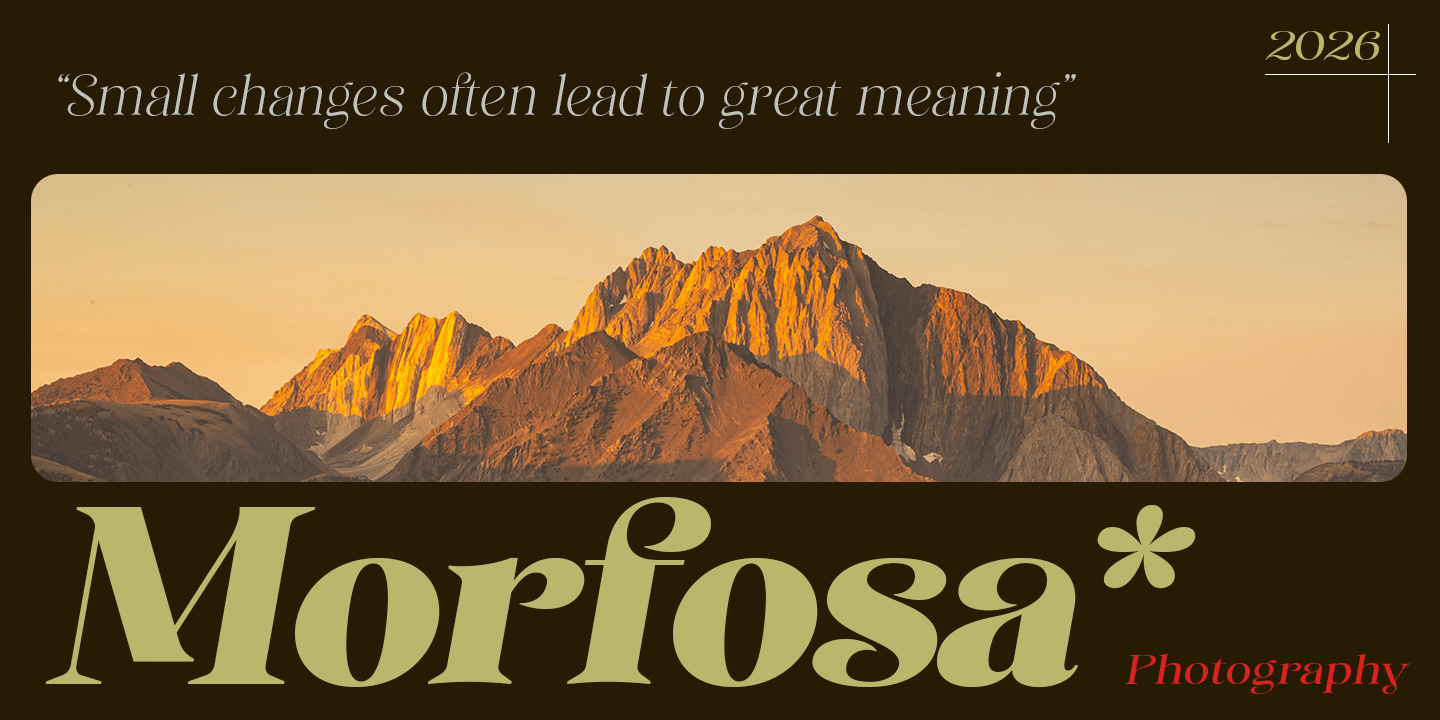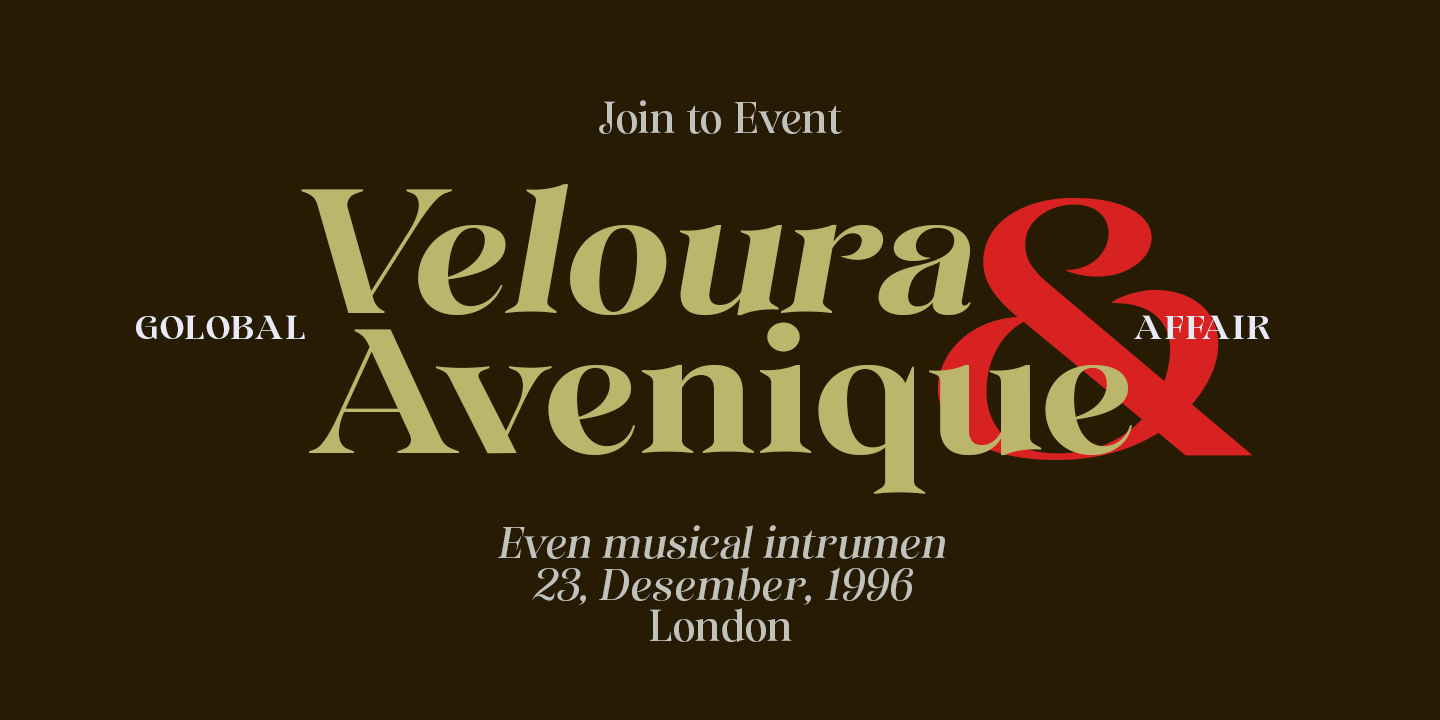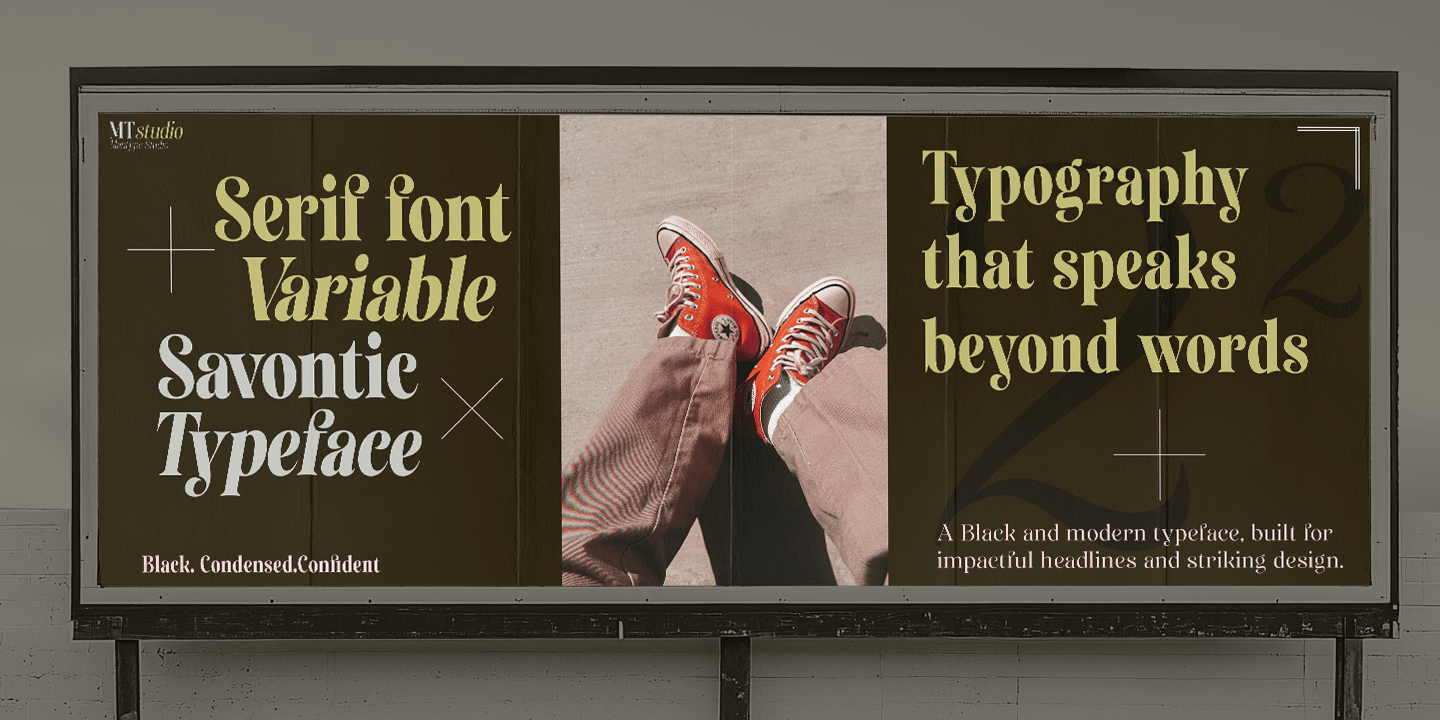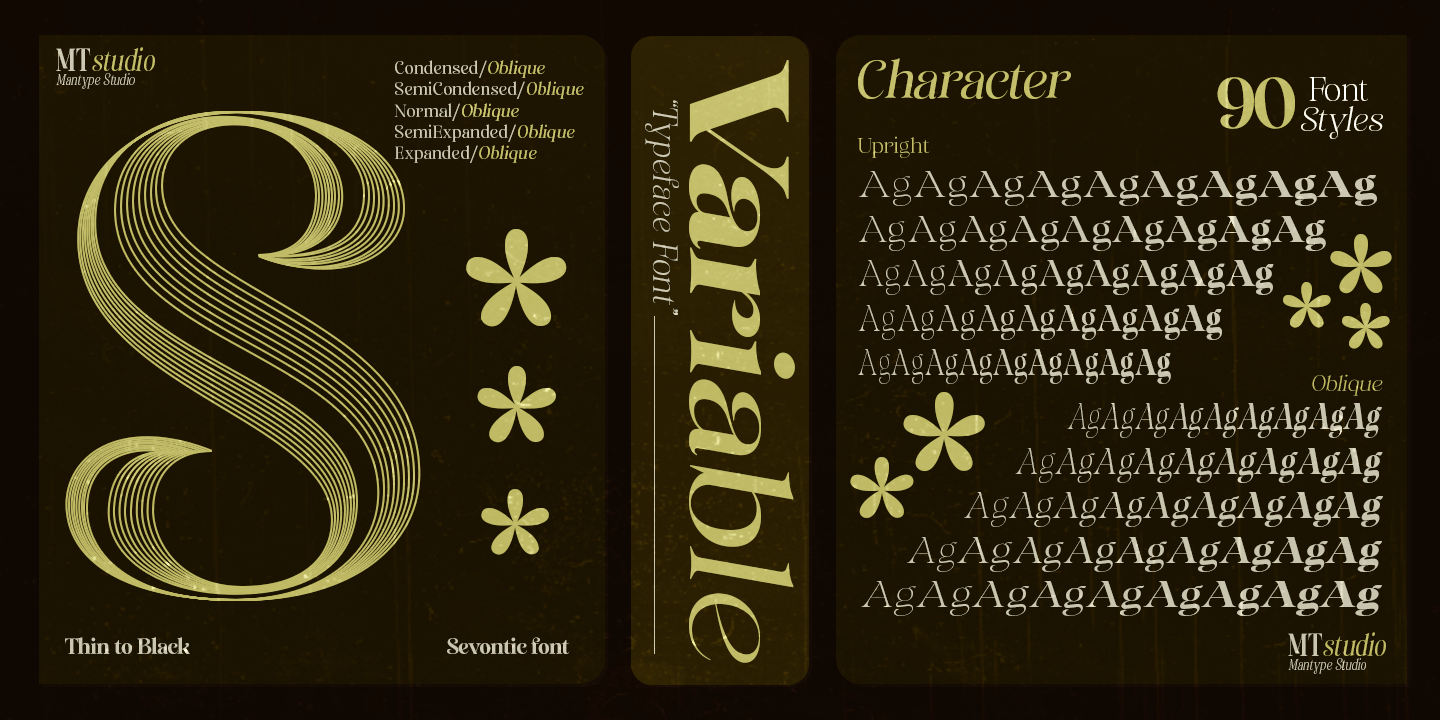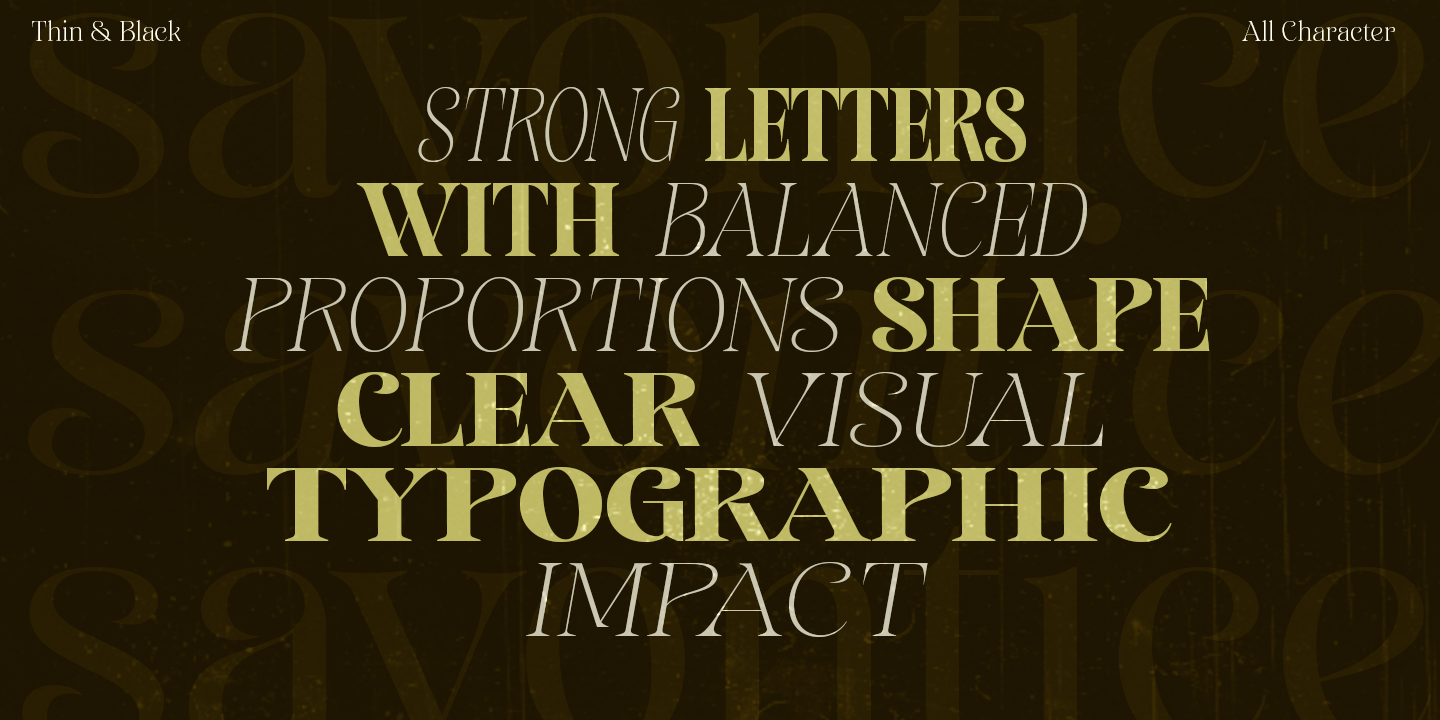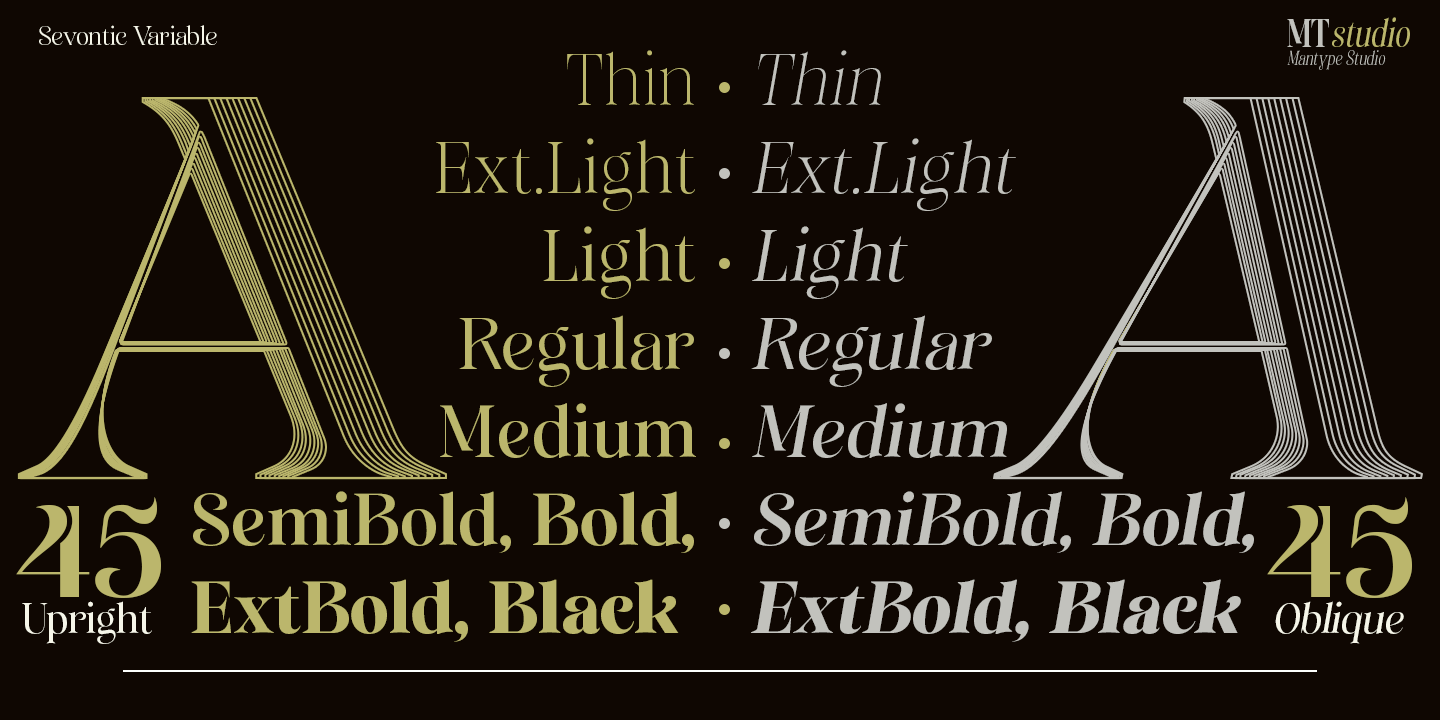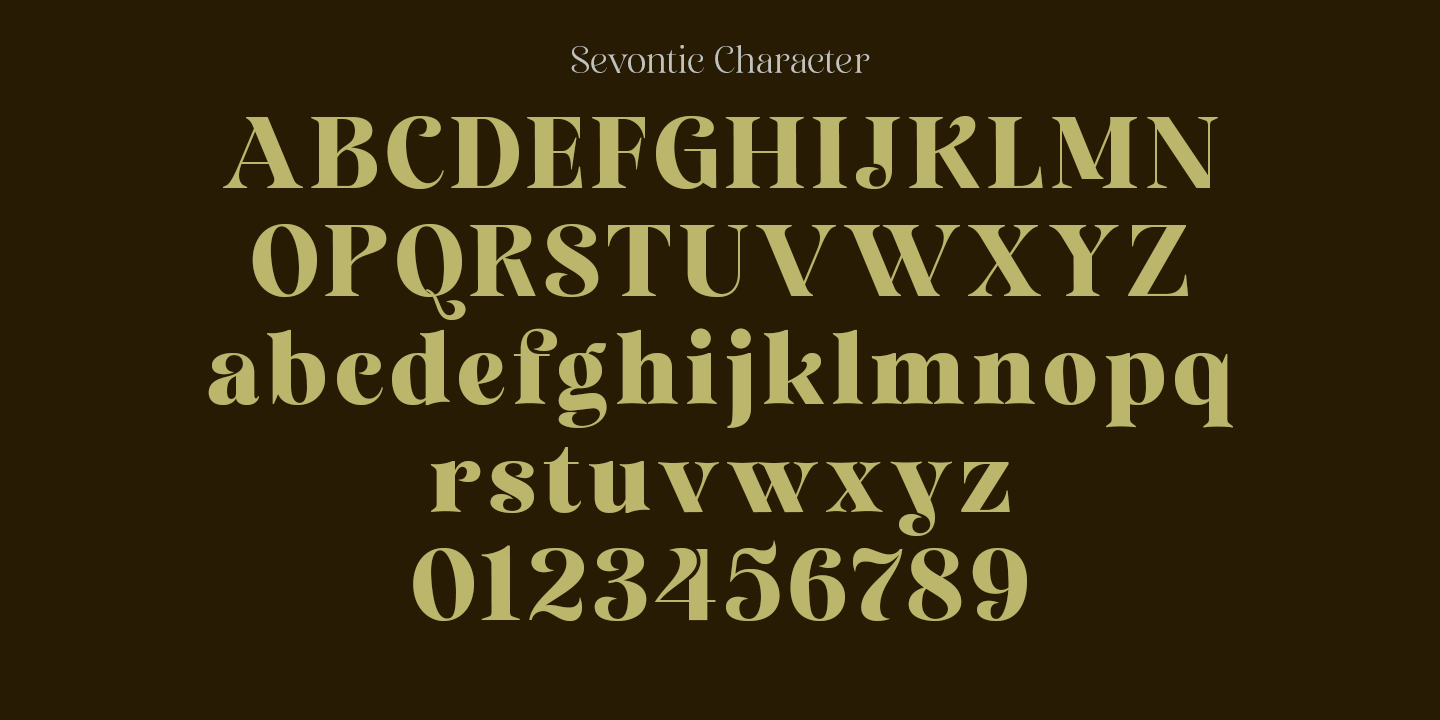
Sevontic
Savontie is a serif font with a strong yet refined character. It features clear stroke contrast between thick and thin lines, creating a confident, classic, and sophisticated impression. Its smooth and controlled serifs add a premium nuance, making it well-suited for exclusive branding, magazines, headlines, and visual identities that aim to convey authority and elegance. The letter proportions tend to be tall and spacious, enhancing readability while maintaining a modern feel. Subtle curves in certain characters introduce an artistic touch without sacrificing professionalism. As a variable serif, this font offers flexibility for various typographic compositions — from formal editorial layouts to contemporary branding visuals.